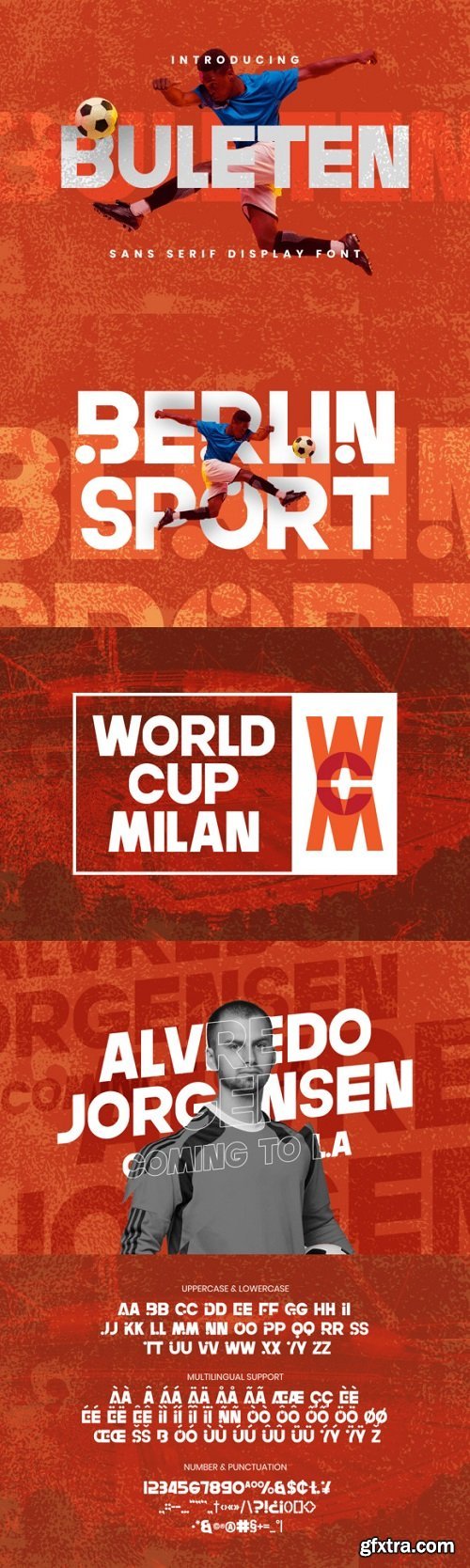
Bulletin Font
Buleten is a sans serif font with visual elegance, smooth curves, and beautiful ligatures clear, making your work look true and attractive.
A versatile font that works in both large and small sizes. This font is suitable for a wide variety of projects such as logos, invitations, branding, magazine, photography, card, product packaging, product mockup, mugs, quotes, posters, labels, signatures, editorials, websites, art deco, social media, and much more.